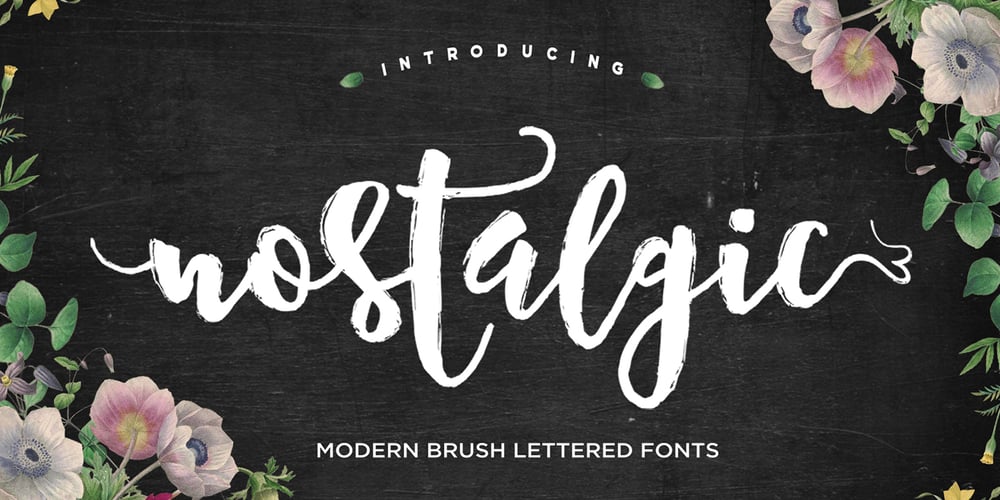
Nostalgic Script
Nostalgic Script font
Nostalgic Script Font Family was designed by Mauli Zari and published by Dhan Studio. Nostalgic Script contains 1 styles and family package options. Nostalgic Script is a modern brush font, organic, dynamic and energetic sytle. It can used for various purposes. such as the title, signature, letterhead, signage, labels, newsletters, posters, logo, correspondence, wedding invitations, badges, etc. Nostalgic Script features 315 Glyphs, 143 alternate characters, including initial and terminal letters, alternates, ligatures and International support for most Western Languages is included. Nostalgic Script is coded with PUA Unicode, which allows full access to all the extra characters without having special designing software. Mac users can use Font Book , and Windows users can use Character Map to view and copy any of the extra characters to paste into your favourite text editor/app.